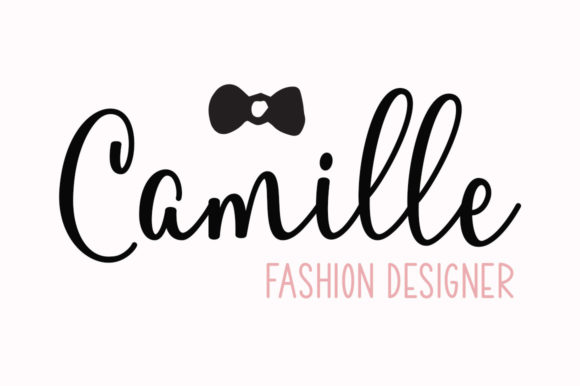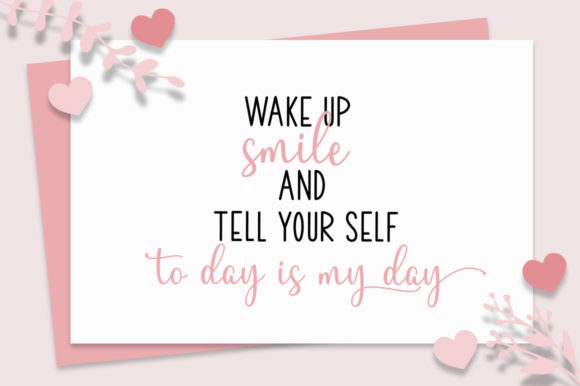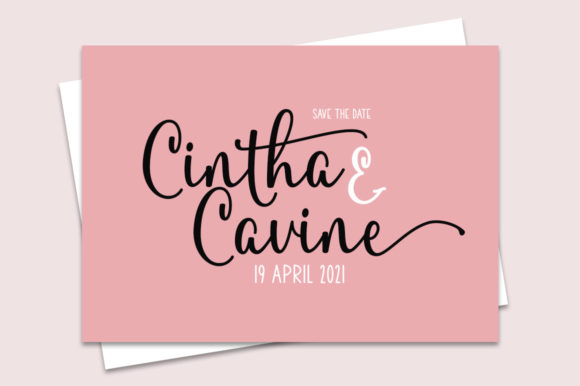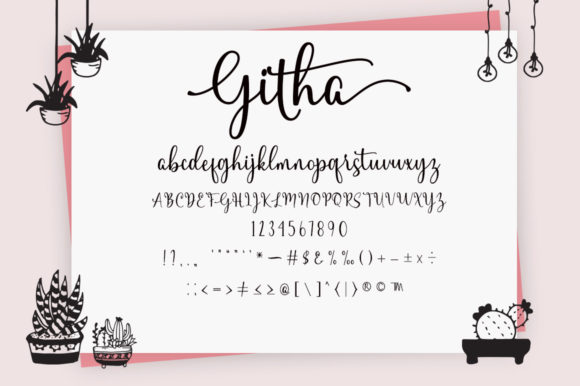
Introduction to Githa Day Font
We’re excited to introduce you to the Githa Day Font, a stunning duo styled handwritten font that will add a touch of elegance to your work. With its sweet and delicate swashes, this original look is perfect for letterheads, titles, and stationery. Plus, with PUA encoding, you’ll have easy access to all the glyphs and swashes you need to create something truly special.
Key Features of Githa Day Font
- High-quality design resource with a transparent background, perfect for creative projects.
- Features a unique and elegant design, ideal for use in branding, logos, and typography-based creative projects.
Honest Review: Githa Day Font
I recently stumbled upon the Githa Day Font, a free design resource that caught my attention. As a designer, I’m always on the lookout for high-quality fonts to elevate my creative projects.
One of the standout features of the Githa Day Font is its beautiful, elegant script style. ✨ The font is perfect for titles, headings, and any other text that needs a touch of sophistication. I also appreciate the transparent background option, which makes it easy to layer over different backgrounds and images.
The font is available for free download, which is a major plus in my book. However, I do wish there were more variations and weights available. ⚠️ As it stands, the font is limited to a single style, which can make it feel a bit restrictive for more complex design projects.
Overall, I’m impressed with the Githa Day Font. It’s a high-quality design resource that’s perfect for adding a touch of elegance to your creative projects. With a bit more development, I think it has the potential to be a truly top-notch font.
- Beautiful, elegant script style
- Perfect for titles and headings